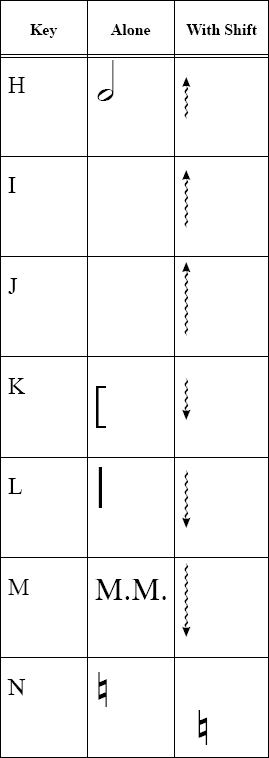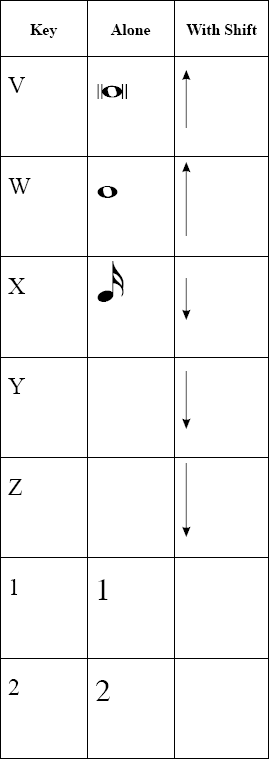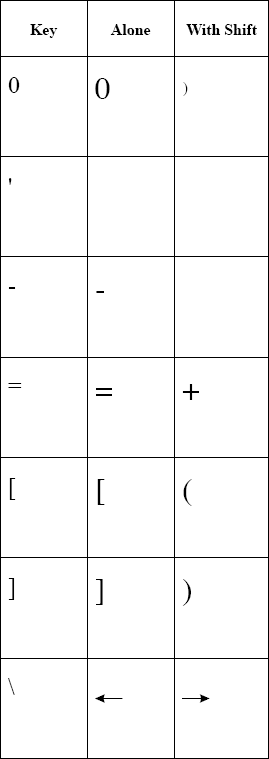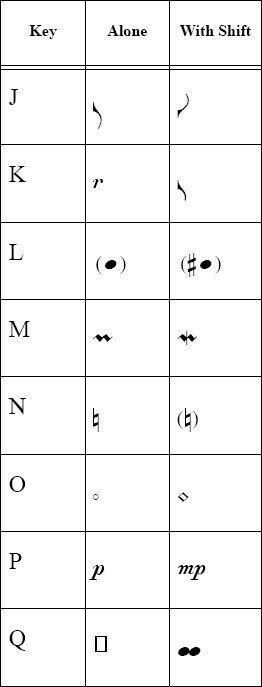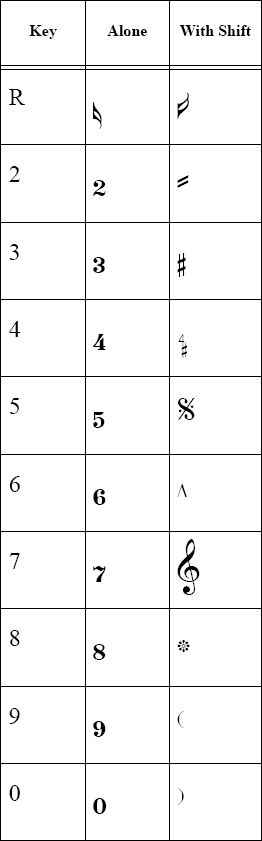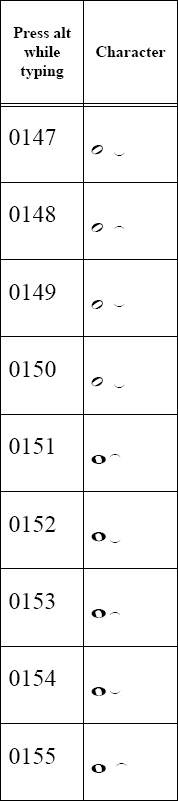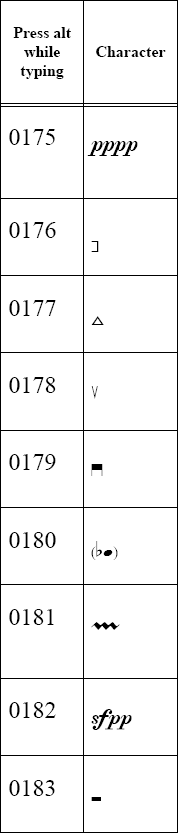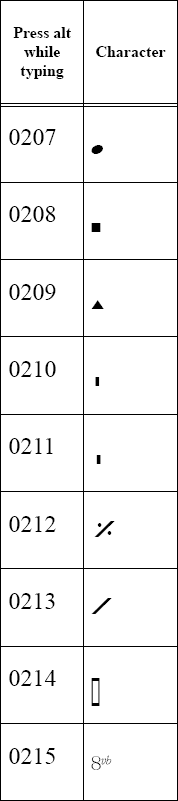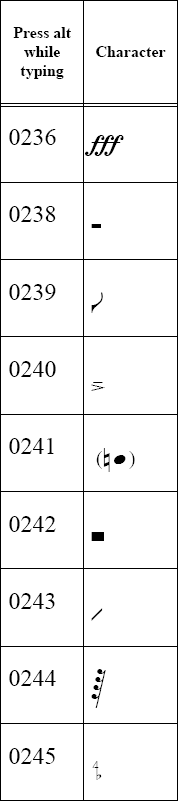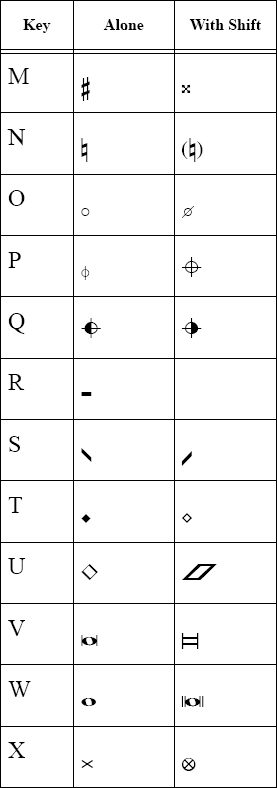
Engraver Font
EngraverTextT is shown below. The Engraver Text fonts correspond to the standard fonts used for
the text portions of the font: T for Times, H for Helvetica and NCS for New Century Schoolbook.
The following characters are available in the Engraver Font Set and Engraver Font Extras only.
Also included are the two “let ring” symbols for input with the articulation tool.
Set One: Full Size
Set Two: 75% Reduction
These noteheads are already reduced to 75% and can be used as “trill to” notes for use within the staff. Enter with the Articulation tool
Indeterminate
Determinate
Type away! Make whatever dynamic possible. There are two sets of parentheses for use. The
and
markings need more space than the other symbols, so use the SHIFT+[ and SHIFT+] both before and after any dynamic with an
and before any marking with a
Engraver Font Set
Engraver Font Extras